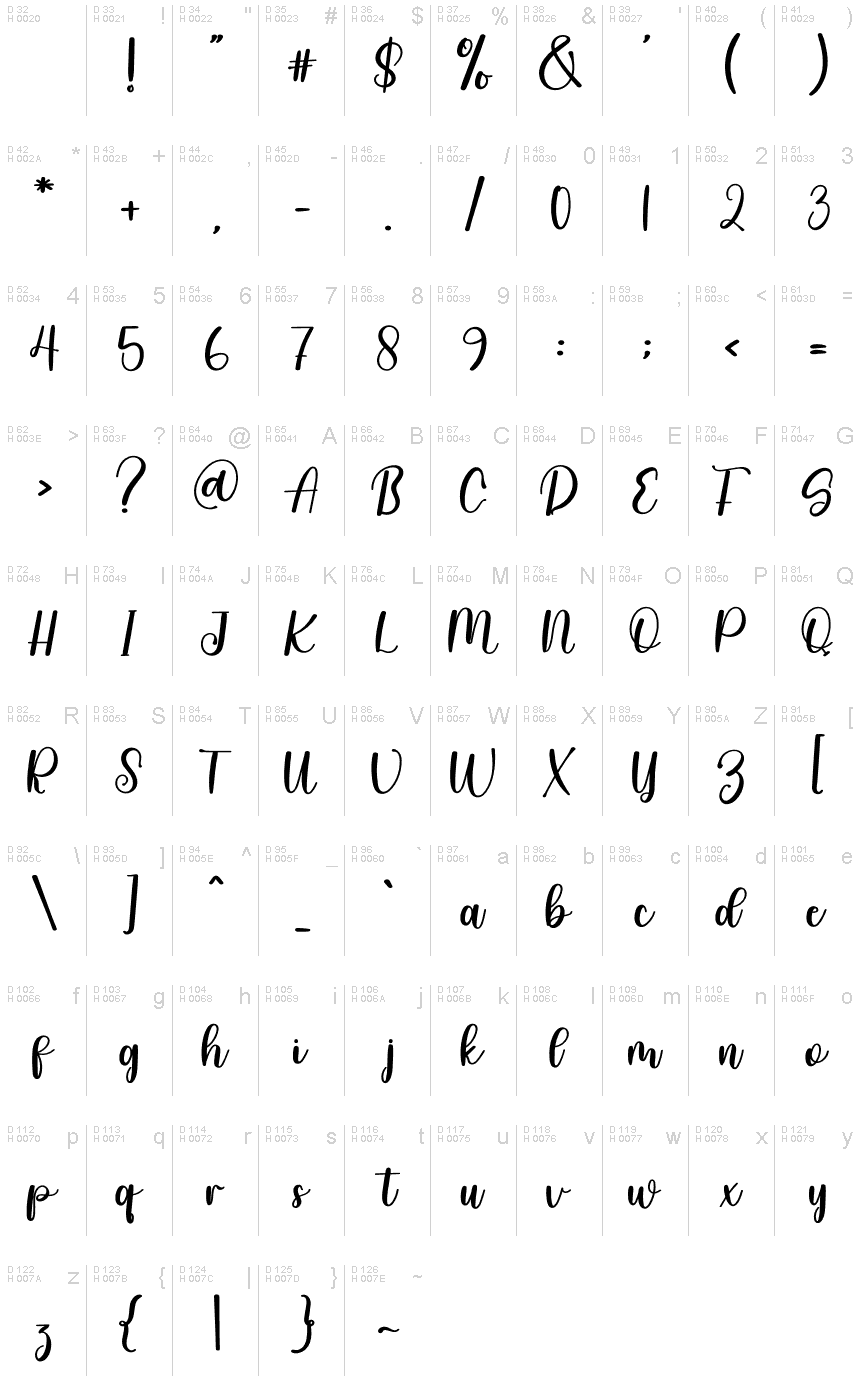
Smile Sundays
Smile Sundays, designed by Inermedia Studio, is a beautiful calligraphy script font perfect for adding a touch of elegance to any project. From wedding invitations and branding to social media posts and logos, Smile Sundays is sure to make your designs shine.